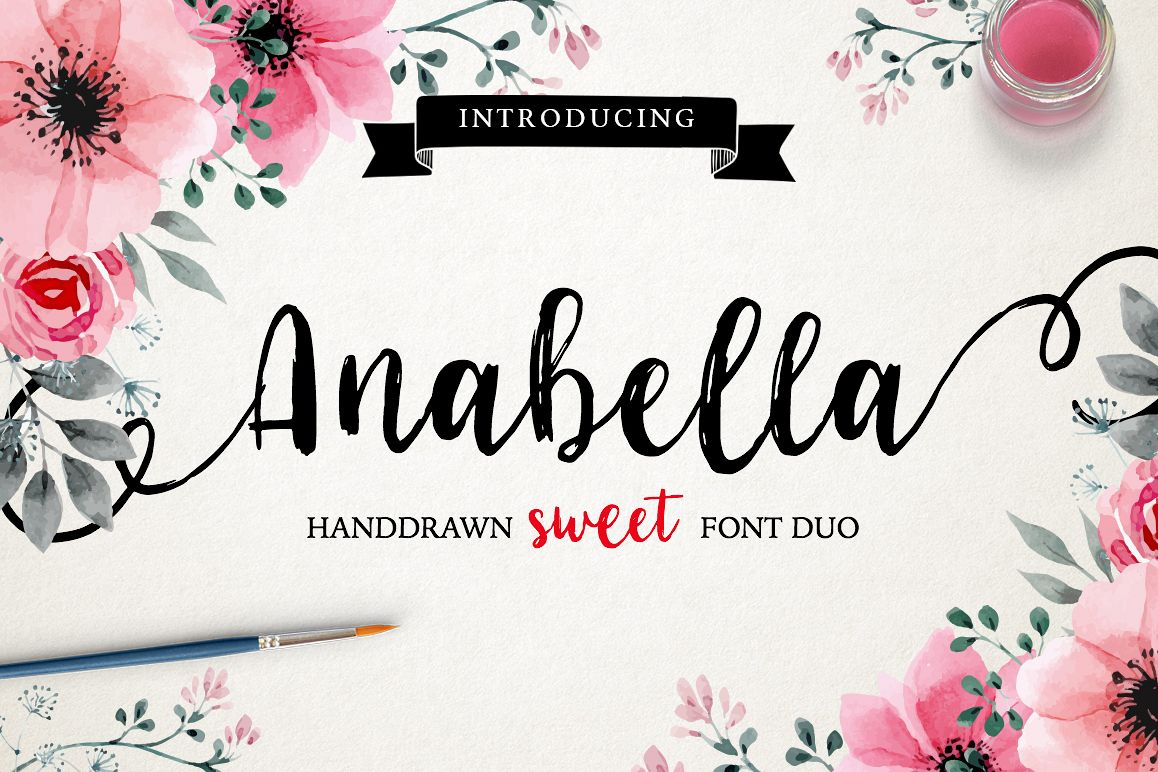
Anabella Script handwritten font
Glad to present you Anabella - a new and amazing handbrushed font DUO. It is ideal for your holiday cards, and more.